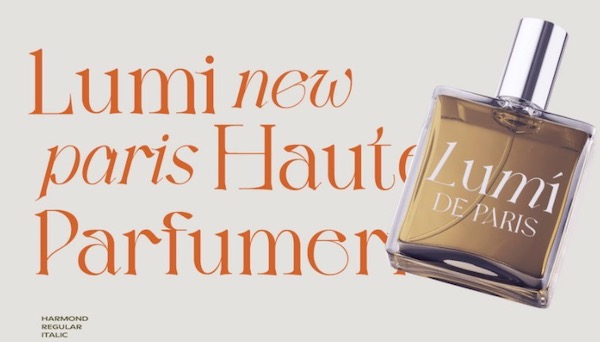
Harmond serif font is a classy style display futuristic font family with 2 unique styles (Regular and Italic), This font family was designed and shared by Hendra Maulia. Harmond font has a stylish, modern, and neat style.
Harmond Display Serif Font